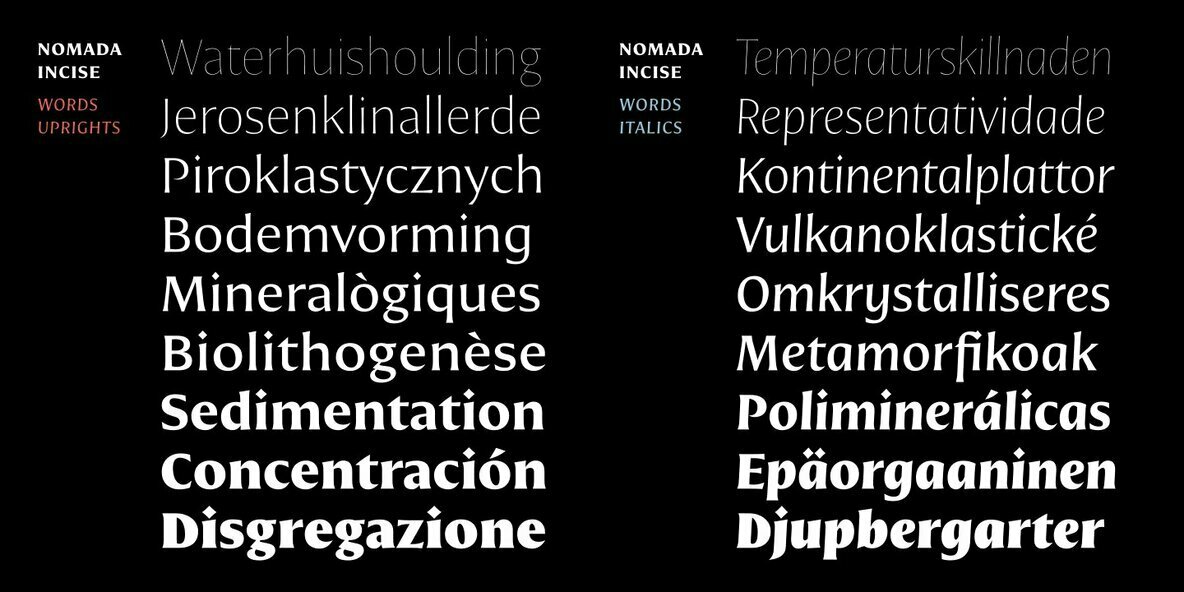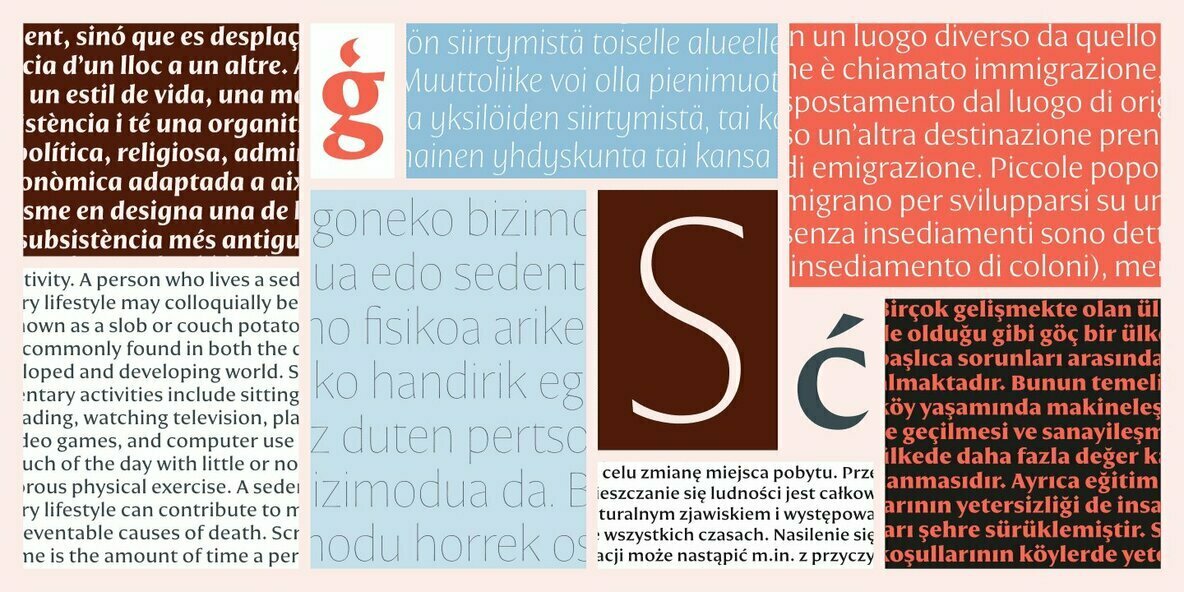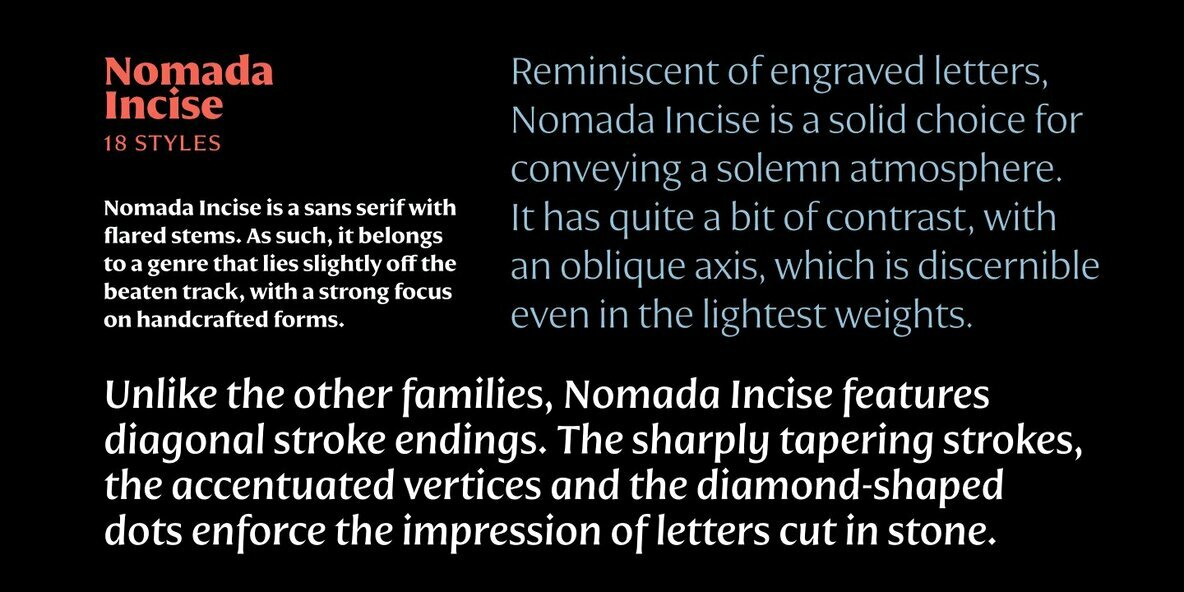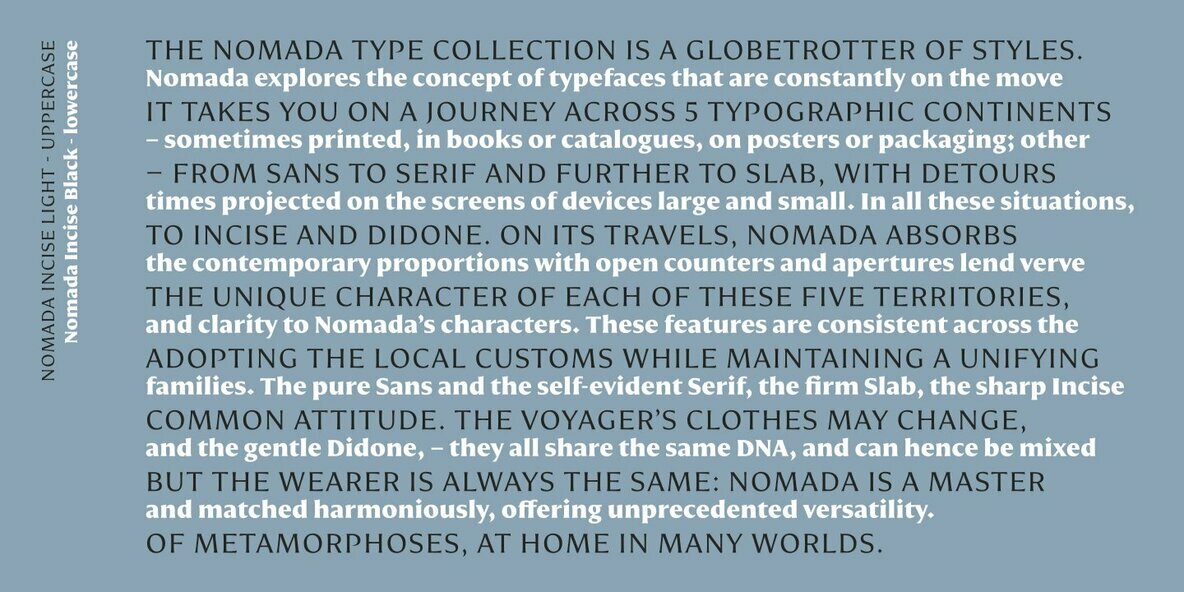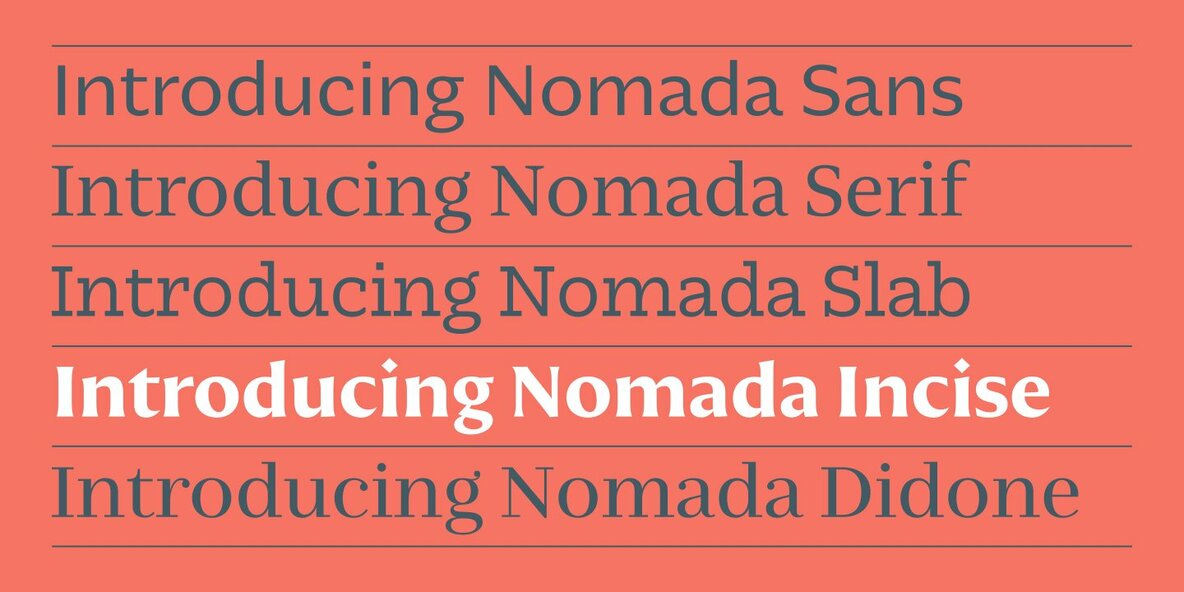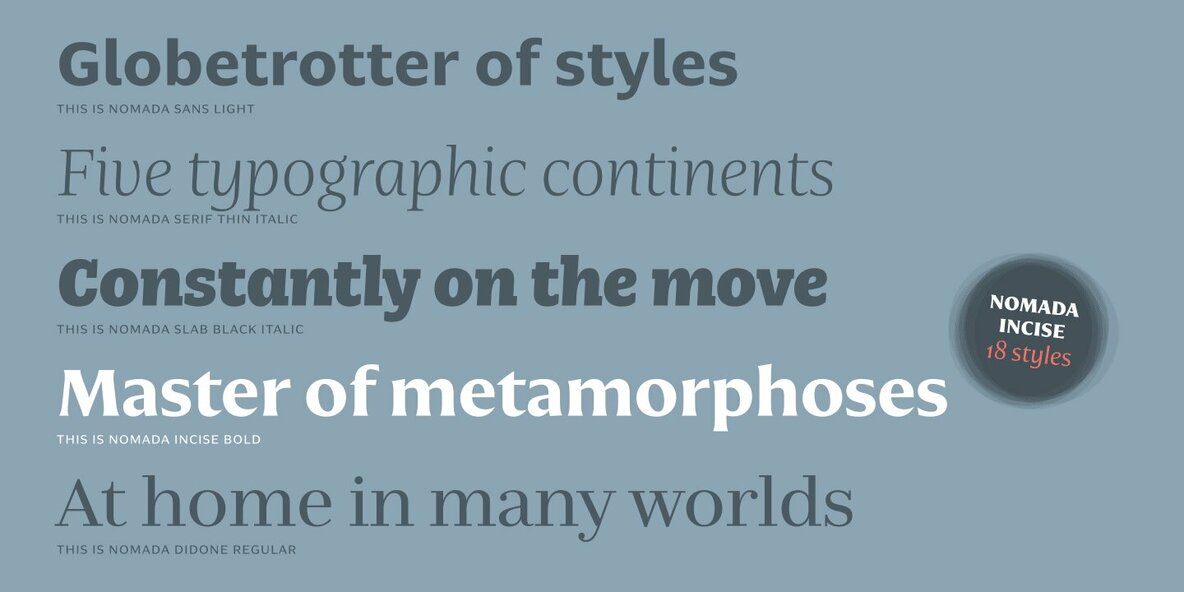
Nomada Incise Font
Nomada Incise is a sans serif with flared stems. As such, it belongs to a genre that lies slightly off the beaten track, with a strong focus on handcrafted forms. Reminiscent of engraved letters, Nomada Incise is a solid choice for conveying a solemn atmosphere. It has quite a bit of contrast, with an oblique axis, which is discernible even in the lightest weights. Unlike the other families, Nomada Incise features diagonal stroke endings. The sharply tapering strokes, the accentuated vertices and the diamond-shaped dots enforce the impression of letters cut in stone.
From his hometown of Barcelona, Jordi Embodas founded Tipografies (tipographies in catalan) in 2010, basically to show and promote his typefaces. He began designing fonts as a hobby in 2008, and specialized in kinds of texts considered more complete, useful and durable.